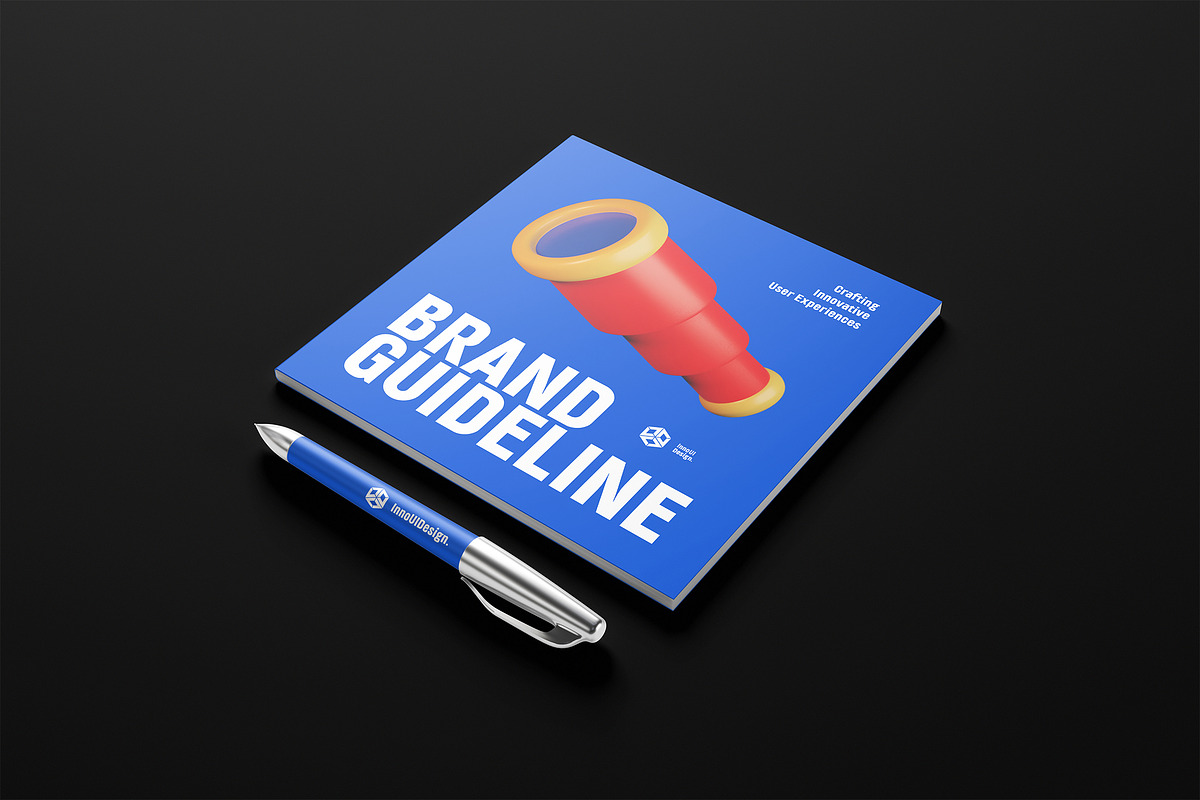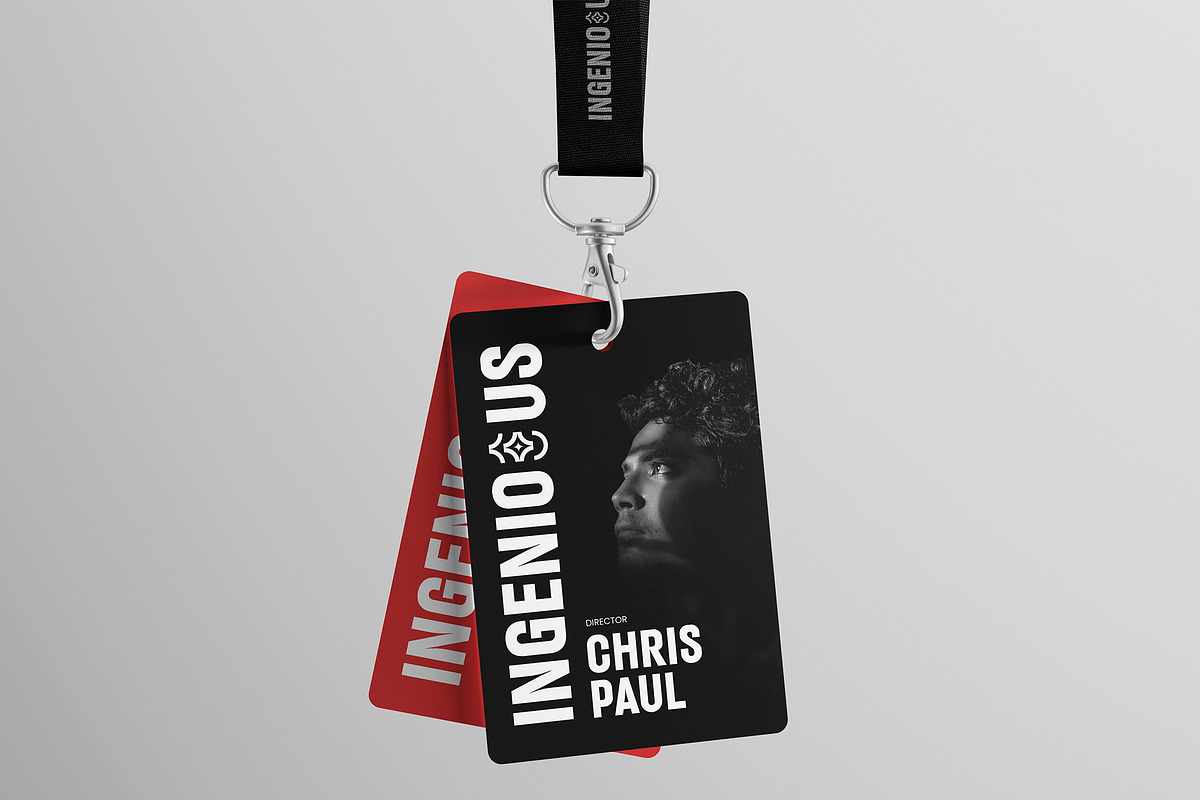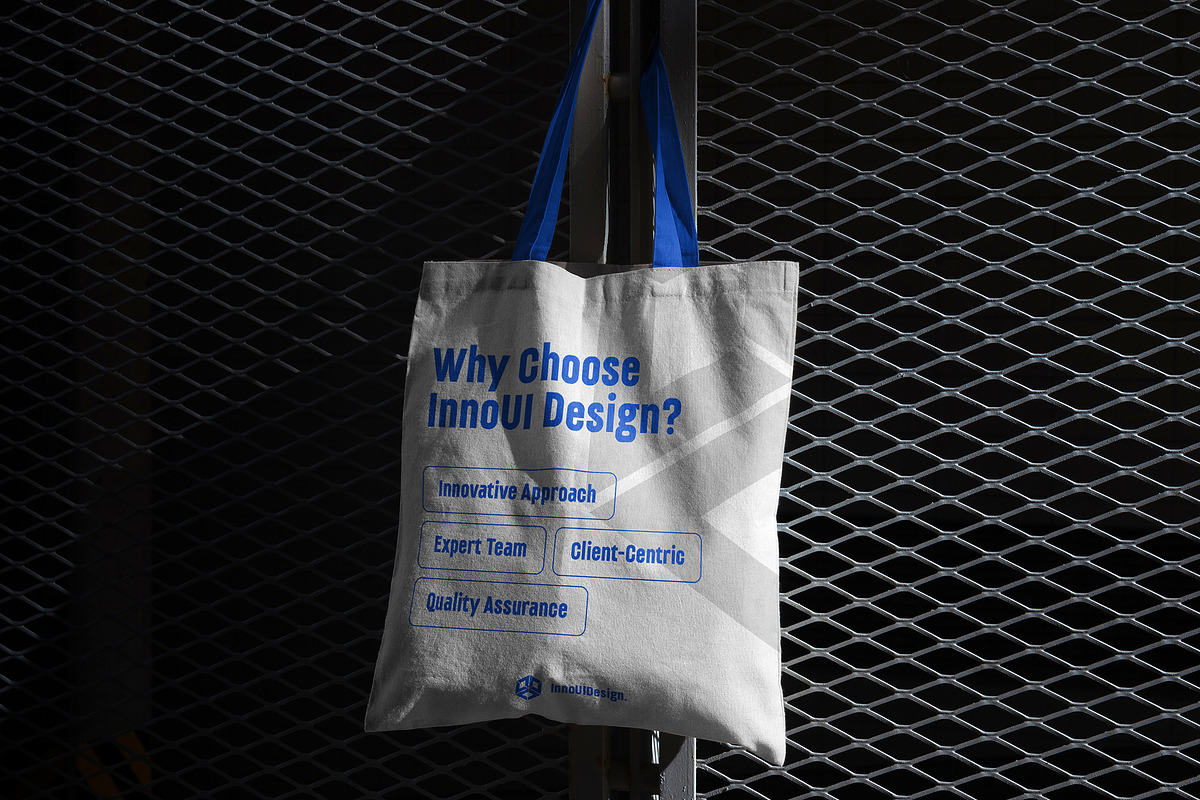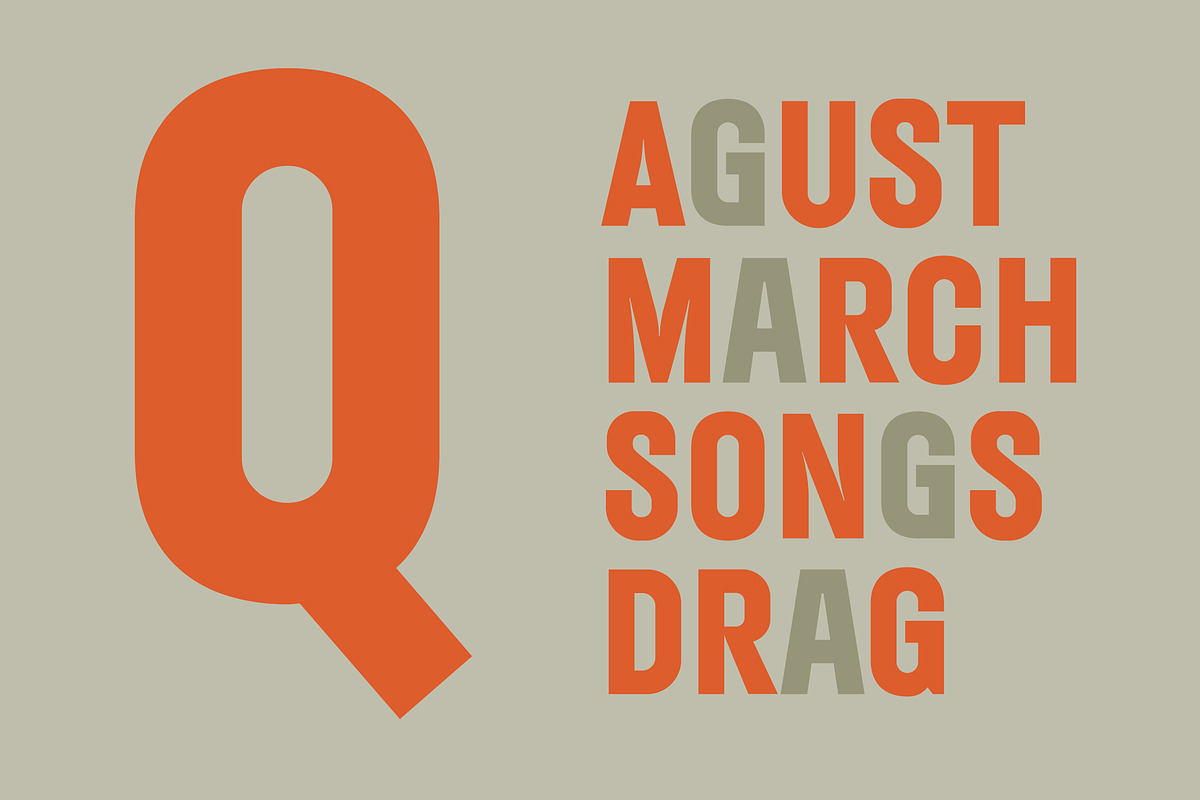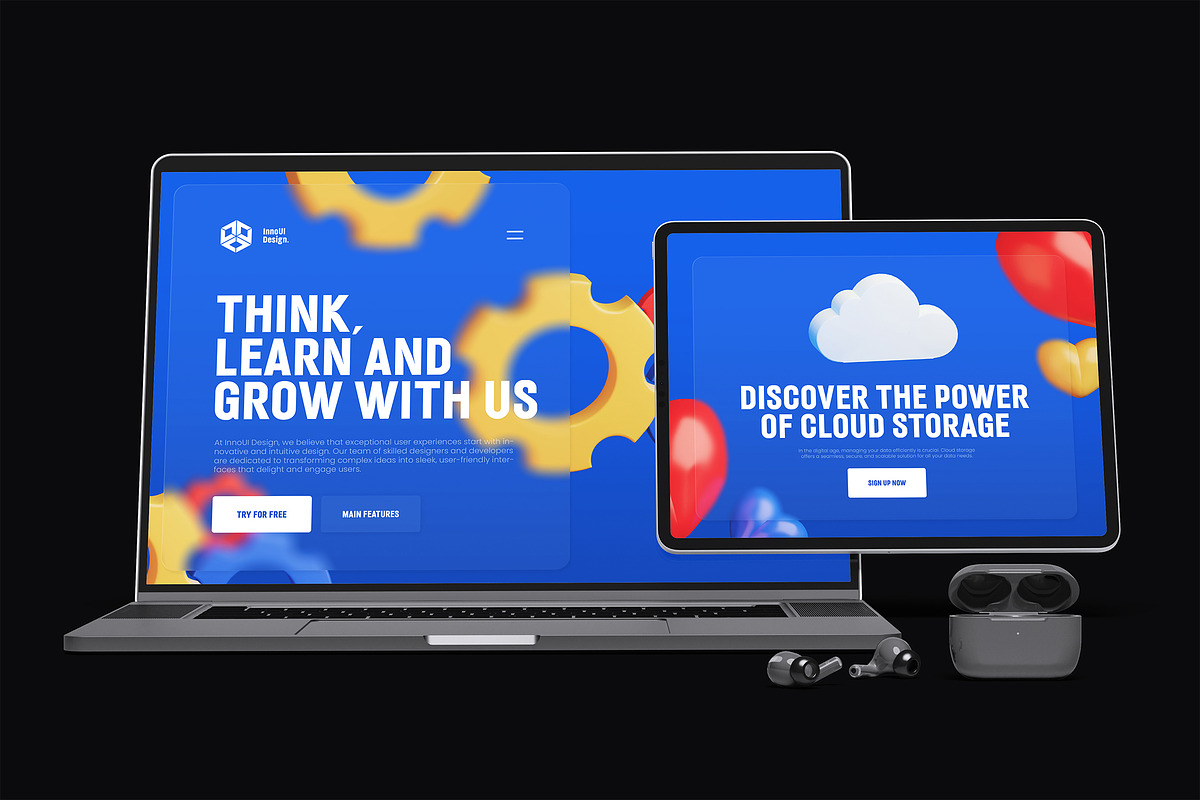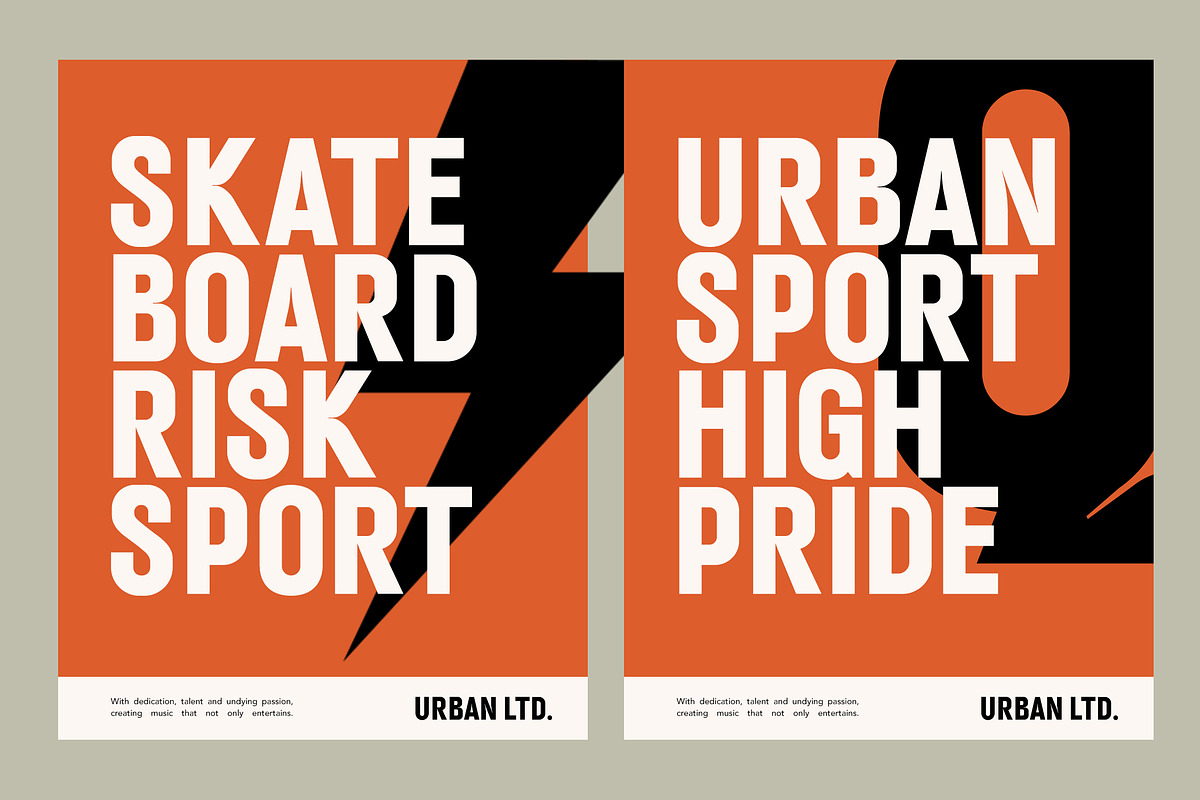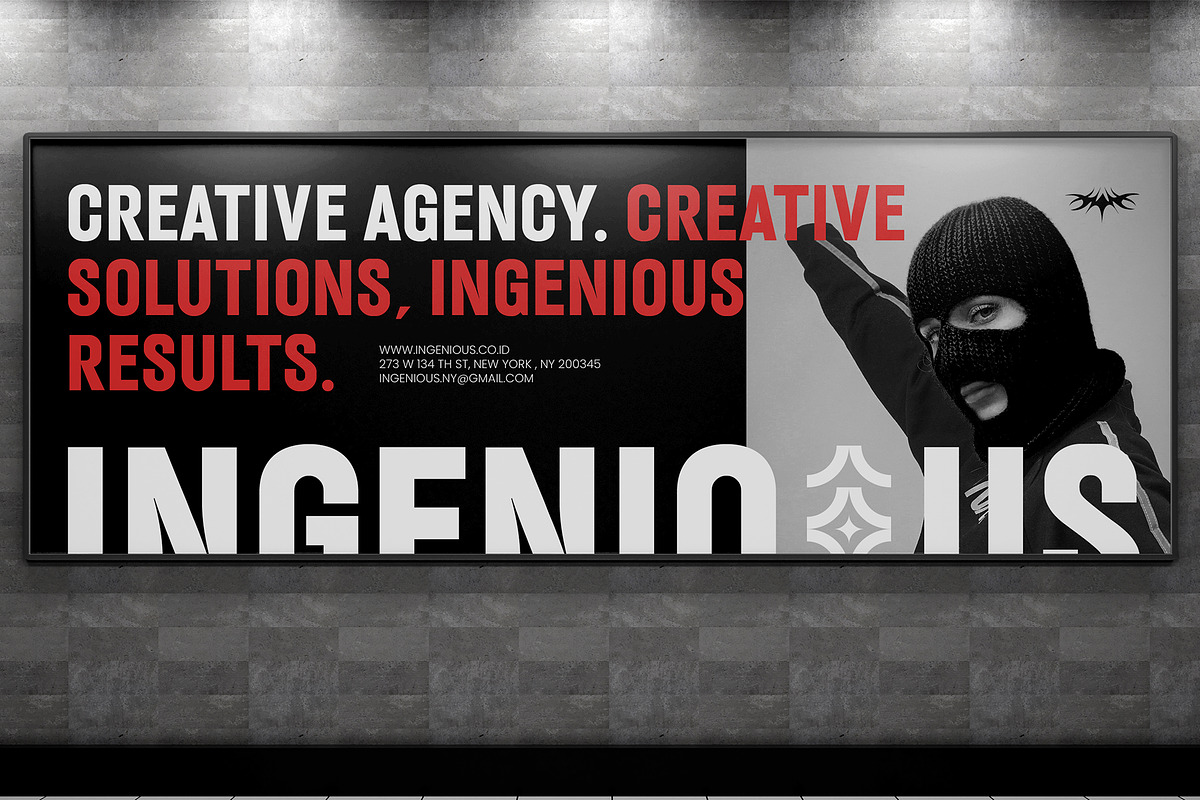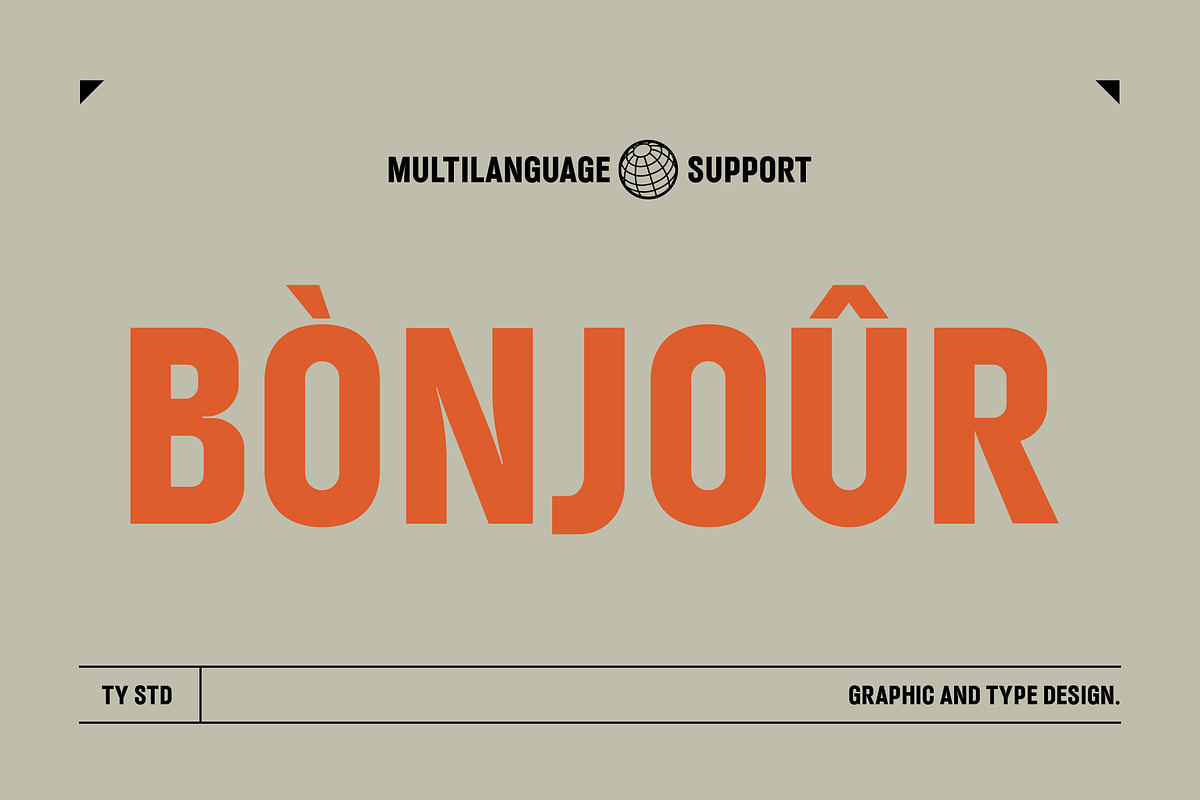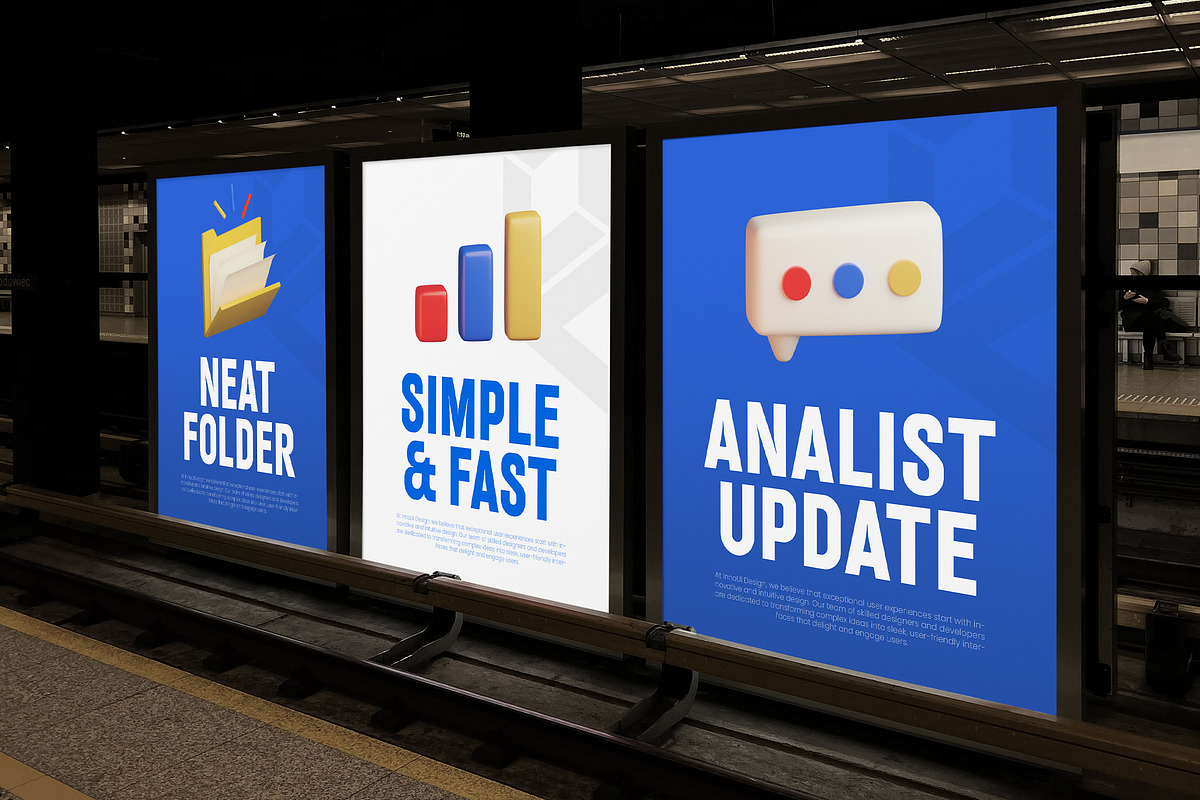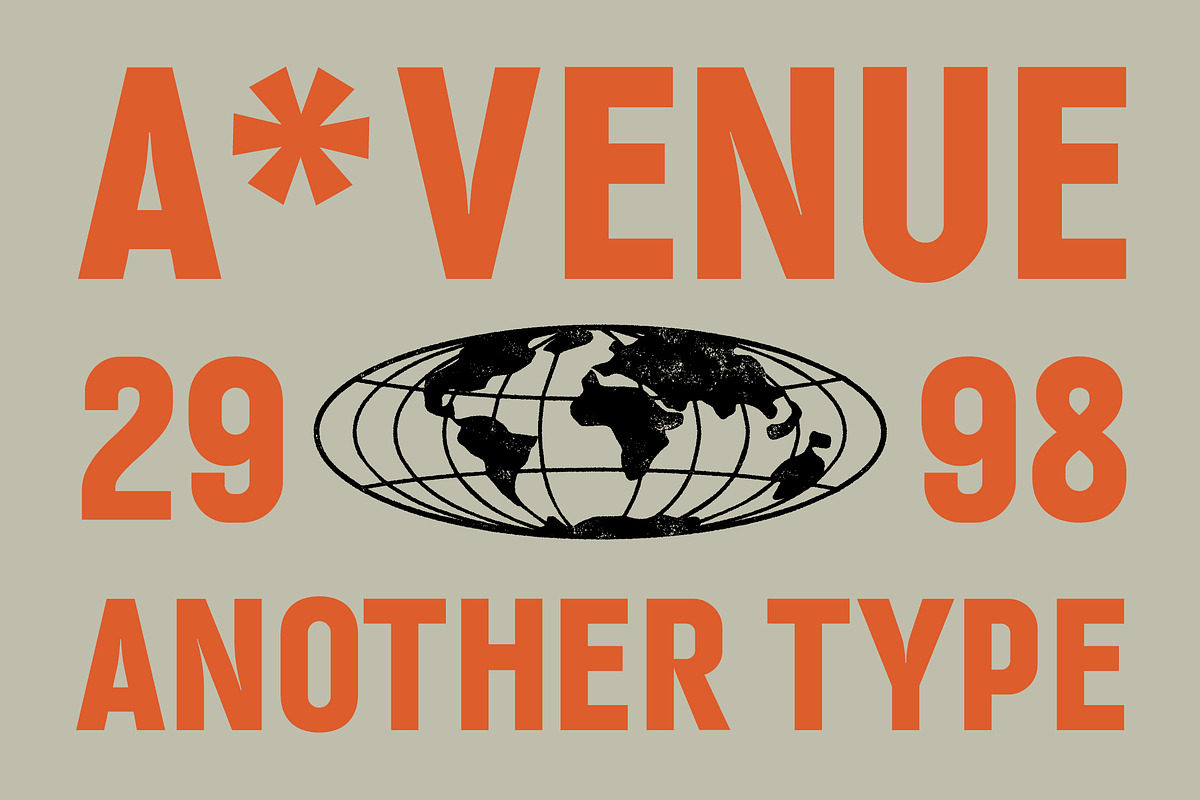
Moveback - Display Sans Serif Font
Moveback - Display Sans Condensed Font - Modern Classiy Bold Font.
Moveback is a Modern Display Sans Serif Font that combines Bold, contemporary design with a strong and impactful presence. Its clean lines and minimalist style make it perfect for branding, editorial design, advertising, headlines, web design, business stationery, logo design, product packaging, digital media and any project that require a bold and modern look. Comes with a comprehensive set of features to support your creative needs. It includes ligatures for smooth character combinations, a full set of uppercase and lowercase letters, punctuation, numerals, and alternate characters. Additionally, it offers extensive multilingual support, making it a versatile choice for global use. Designed with precision and understanding of contemporary typographic trends, crafted characters ensure both aesthetic appeal and readability, making it a reliable choice for designers looking to create modern and impactful designs.